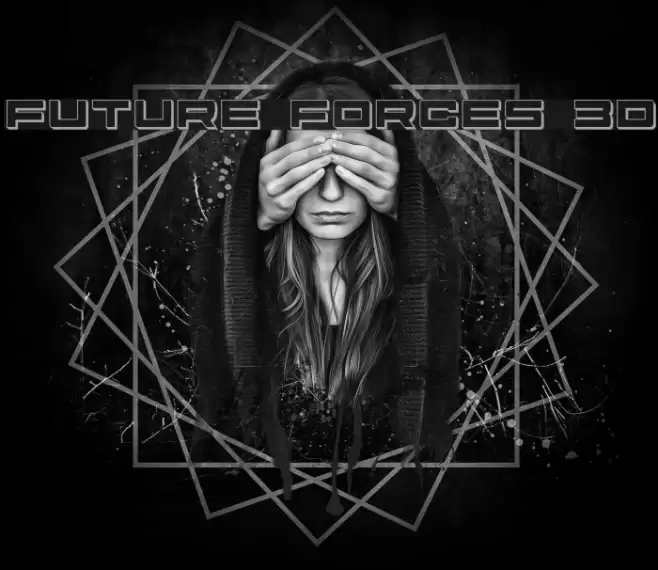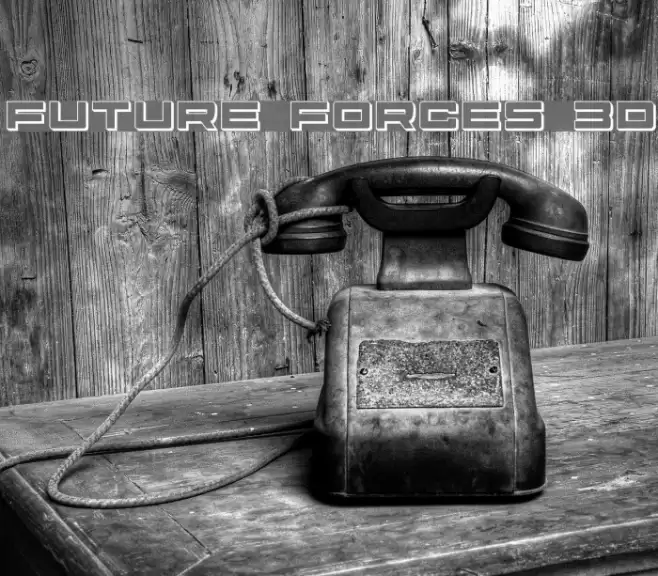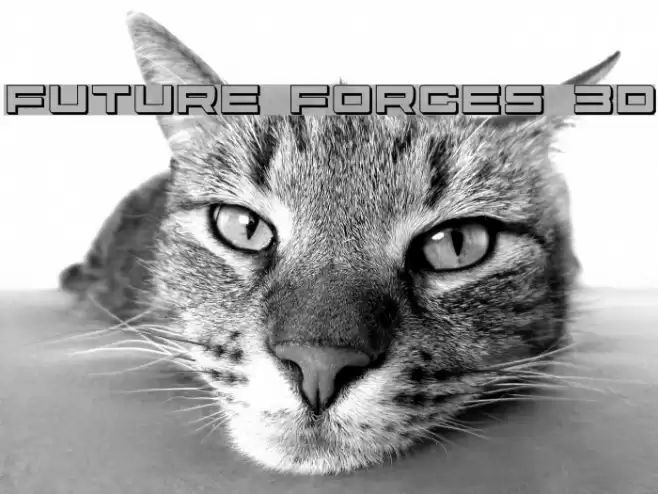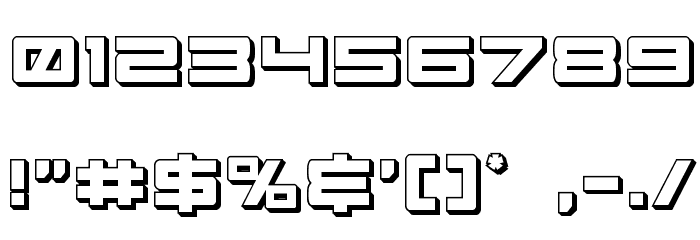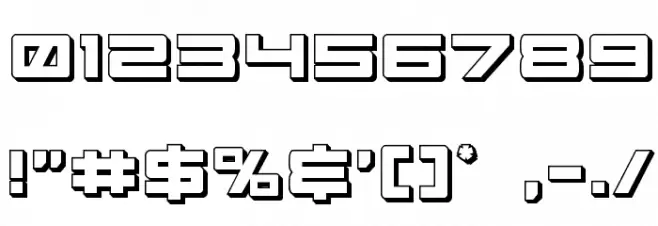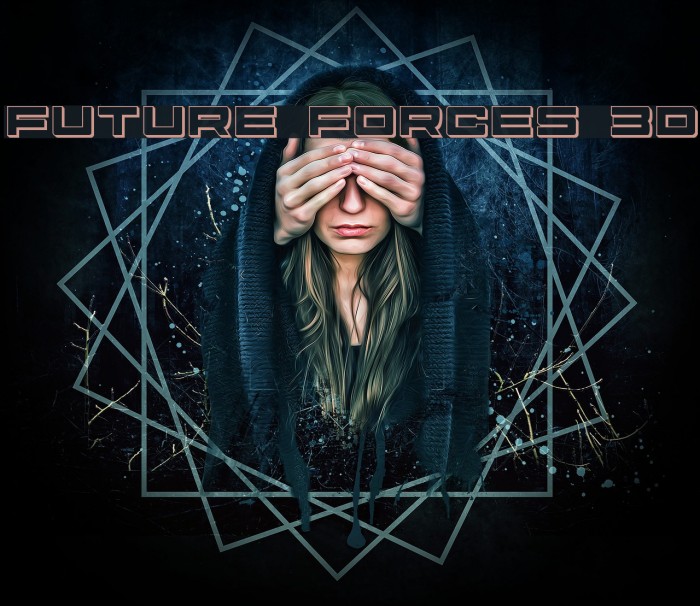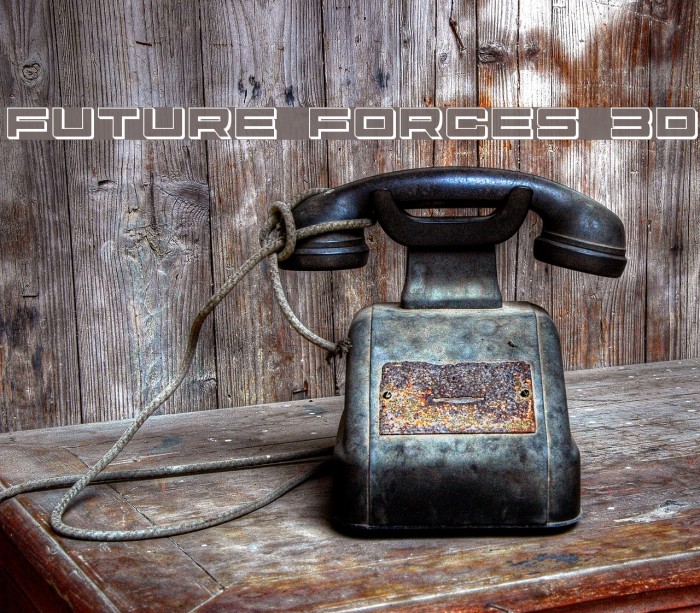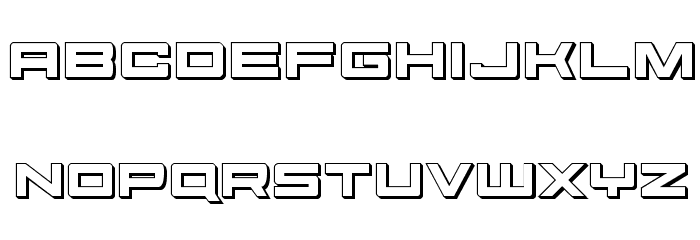
Future Forces 3D Font
Future Forces 3D Description
This font features a bold, futuristic design with a three-dimensional effect that gives it a strong, impactful presence. The characters are outlined with a shadow-like effect, enhancing the 3D appearance. Each letter and number is crafted with precision, maintaining a consistent geometric style throughout. The uppercase and lowercase letters are distinct, with the uppercase being more prominent and the lowercase slightly more compact. The numerals are equally bold, ensuring they stand out in any context. Special characters are included, maintaining the same stylistic approach, making this font versatile for various applications. The overall design is modern and eye-catching, suitable for projects that require a futuristic or tech-inspired aesthetic.
A bold, futuristic font with a 3D effect and geometric style from Uncategorized fonts.
- Proposed Projects: Ideal for sci-fi themed designs, tech branding, video game titles, and futuristic posters.
- Overall Style: Futuristic